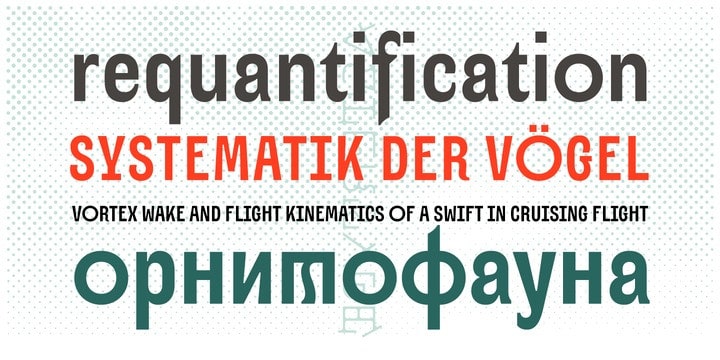
Alter Aves Sans Serif Font Demo
Alter Aves Sans Serif Font is a multilingual sans serif typeface with uppercase and lowercase letters, numbers and punctuation. This font is a display condensed sans-serif typeface manufactured by Glen Jan with couple of geometric-round letters, serif-styled elements and flat brush strokes.
It supports Latin Extended-A (Western, Central Europe, Baltic, Turkish) and Cyrillic encoding languages and minimal opentype features – oldstyle digits, case sensitive punctuation, small-numeric forms and scripted fractions.